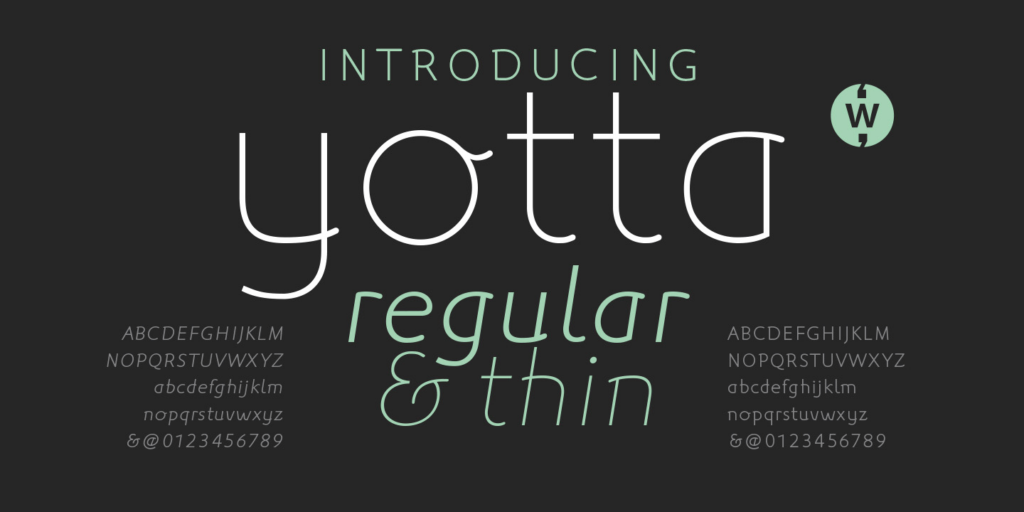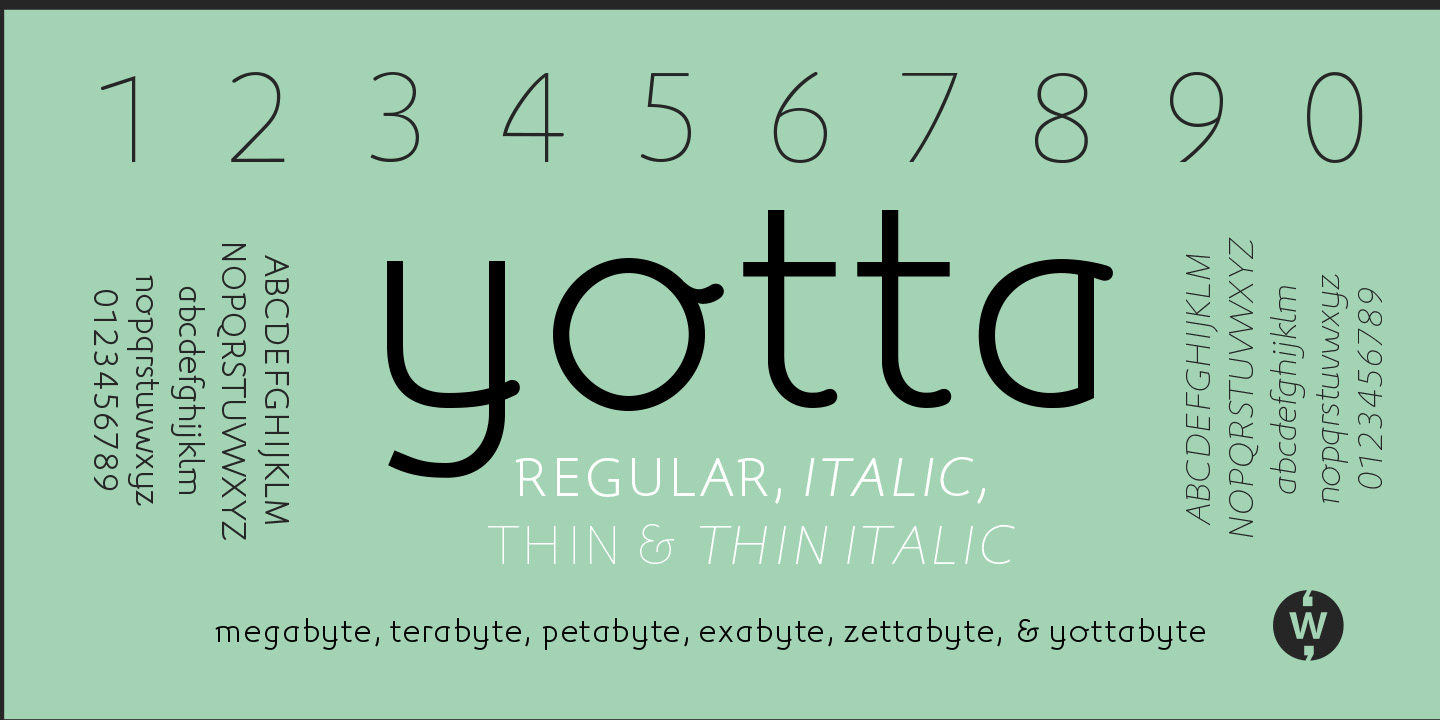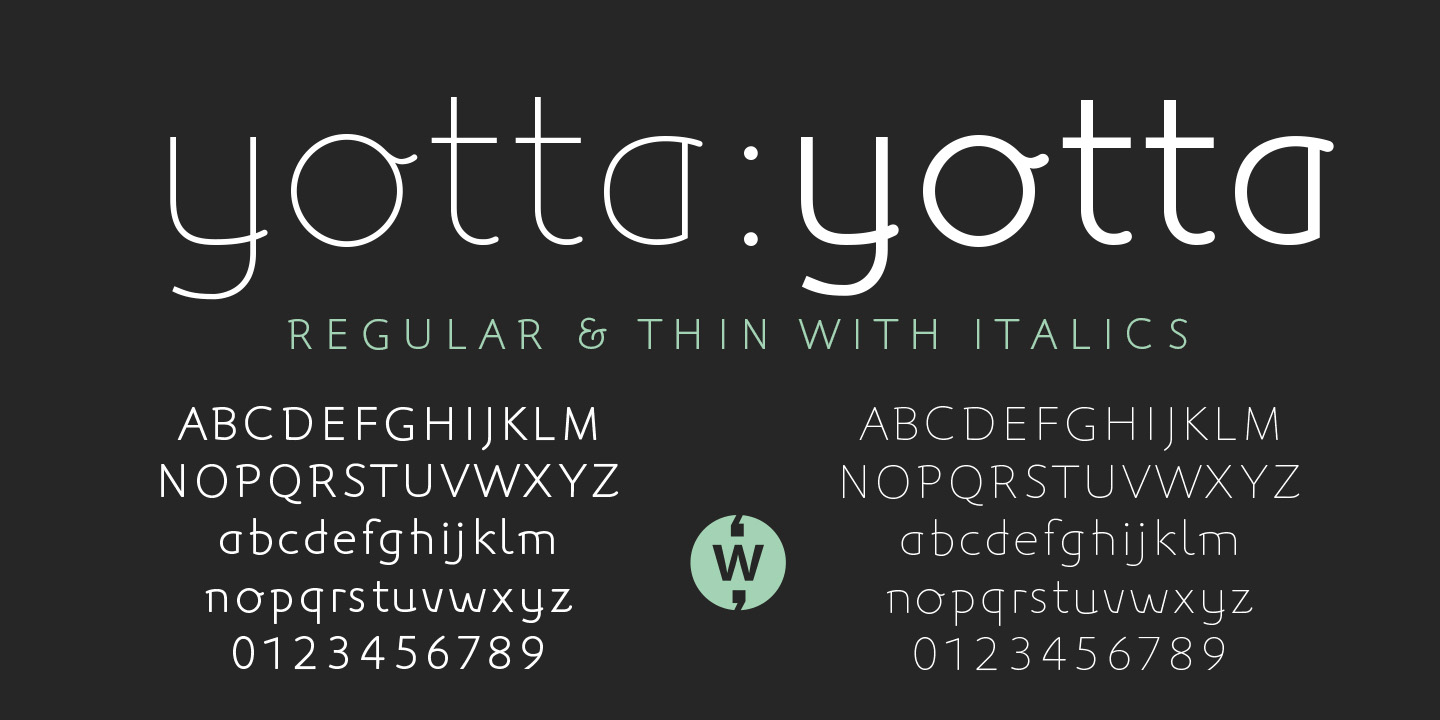
About Yotta
Yotta was created for situations where a thin sans with a little extra style is required in branding, advertising promotional projects ? it is especially suited for the FASHION retail industry. The extended stroke feature (in u/c B,DP,R and l/c a,b,dg,h,m,npq,u,y)…